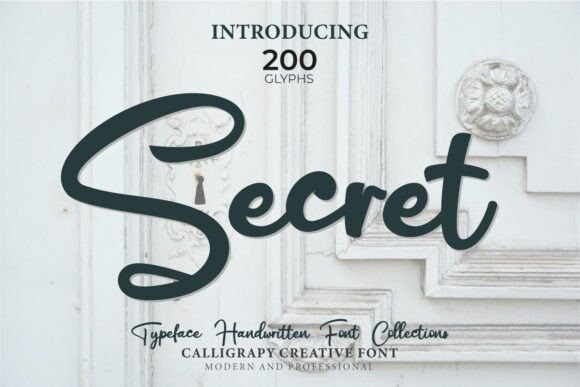
Secret Font
Secret is a fun and casual handwritten font. Whether you’re using it for crafts, digital design, presentations, or making greeting cards, this font has the potential to become your favorite go-to font, no matter the occasion!